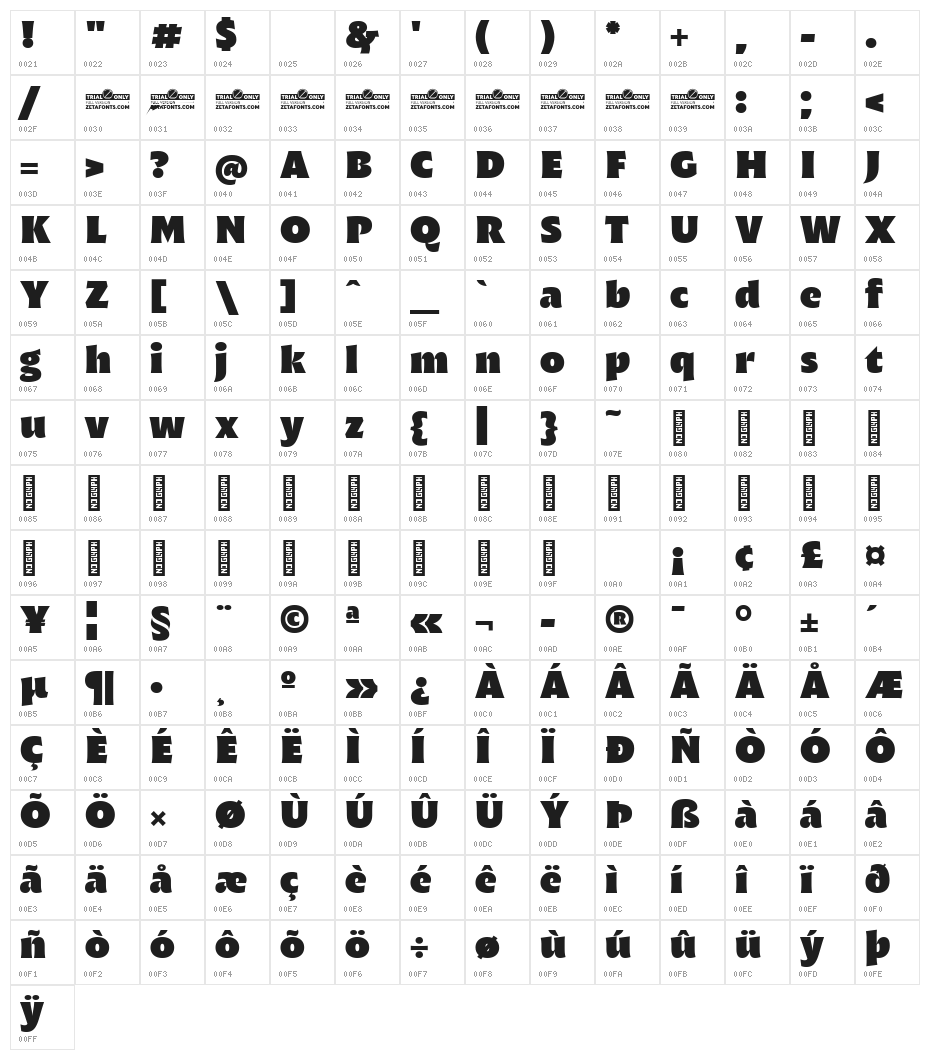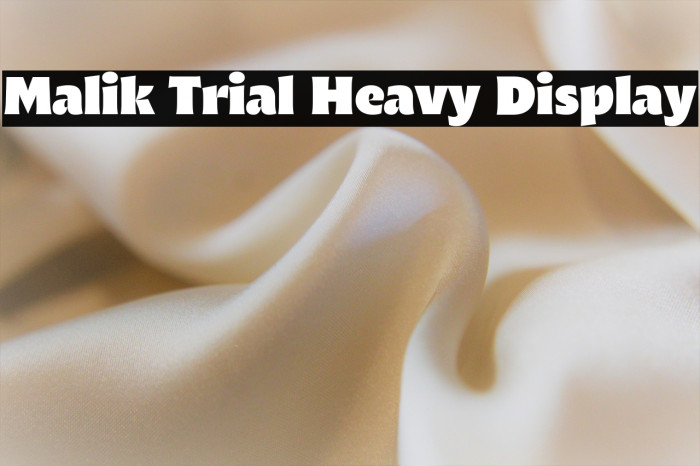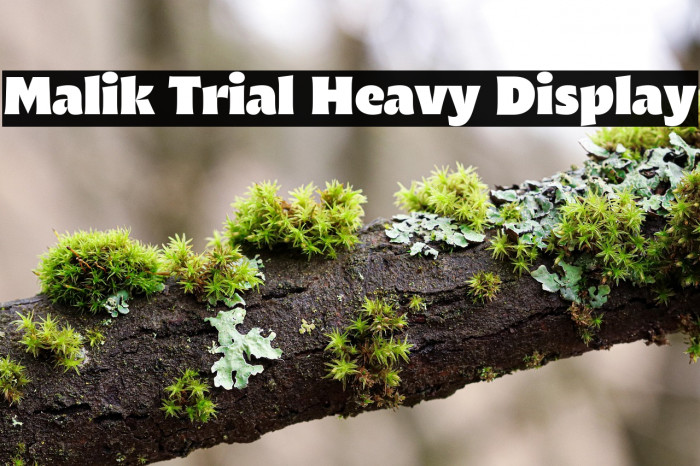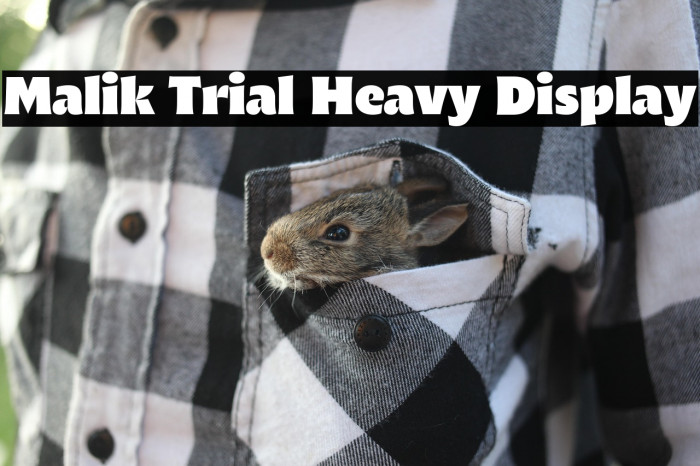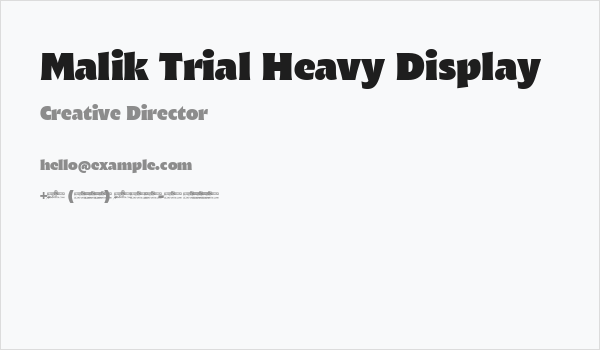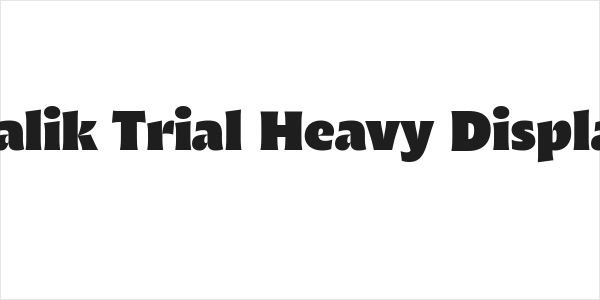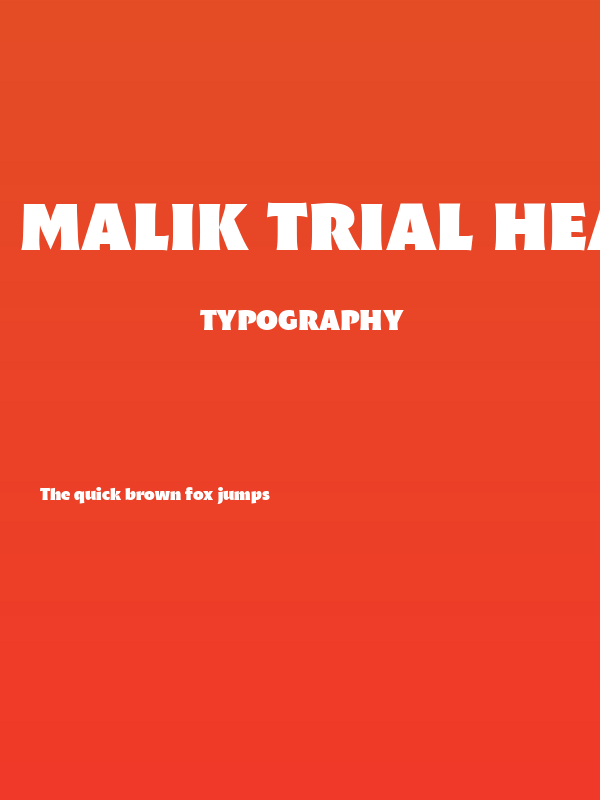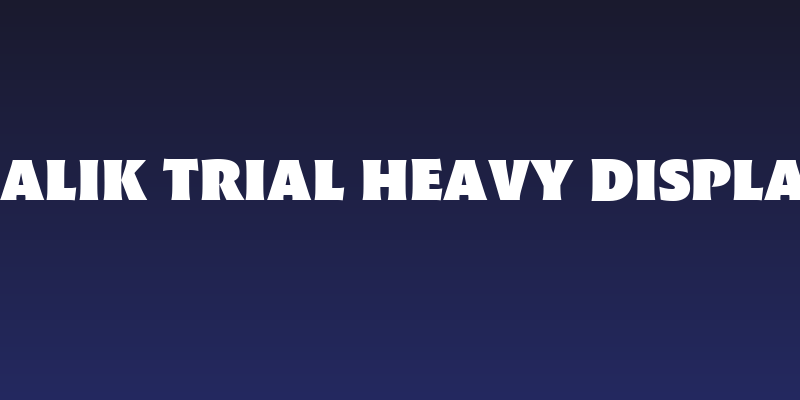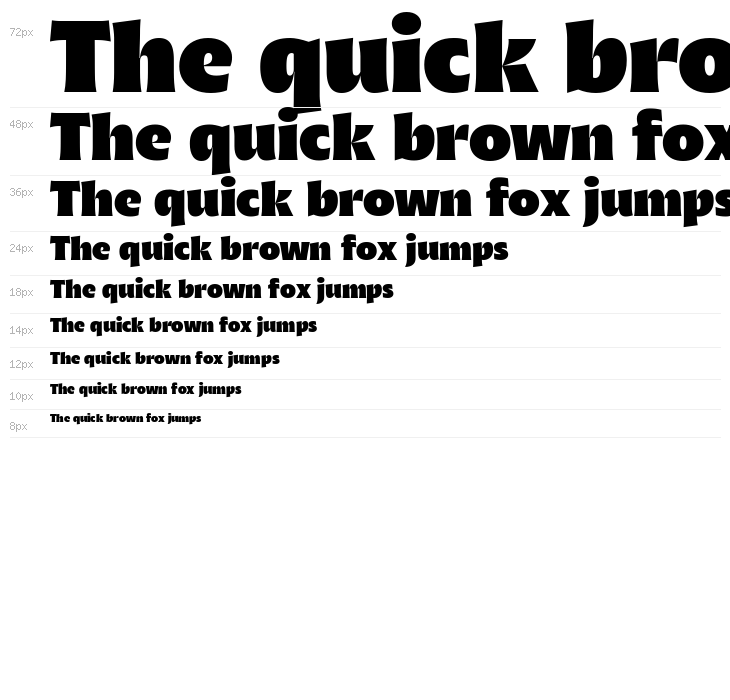
Malik Trial Heavy Display Font
Malik Trial Heavy Display Description
This font exhibits a bold and heavy display style with a strong presence. The characters are robust and have a slightly condensed appearance, giving them a powerful and impactful look. The uppercase letters are particularly striking, with a uniform thickness that enhances their boldness. The lowercase letters maintain the same weight and style, ensuring consistency across the typeface. The numerals and special characters are designed to match the overall aesthetic, making them suitable for various applications. The font's unique style makes it ideal for headlines and display purposes, where attention-grabbing text is essential.
| Proposed Projects | Ideal for branding, posters, headlines, and any project requiring a bold statement. |